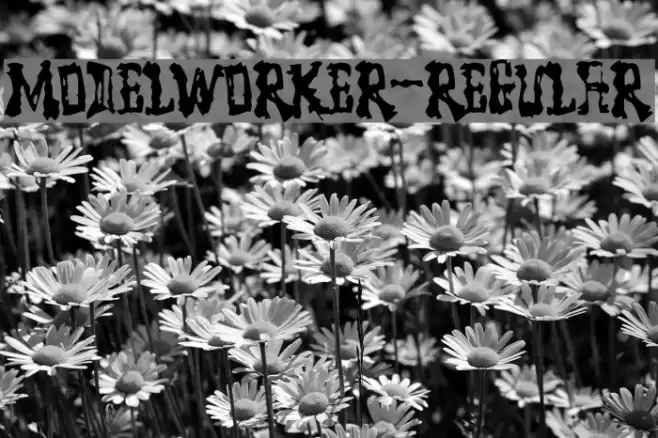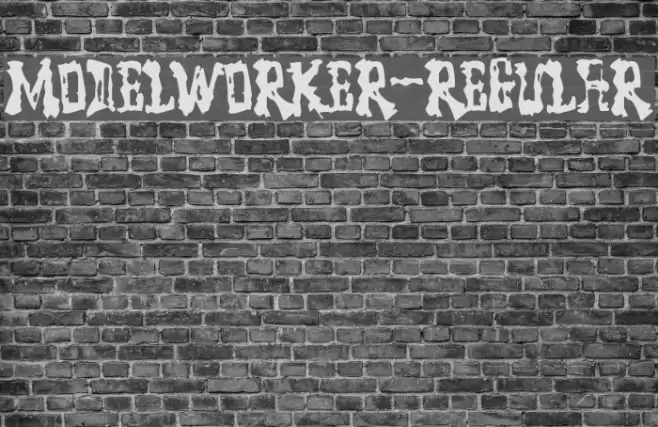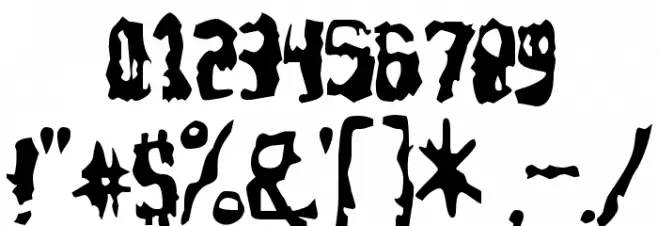
ModelWorker-Regular Font
ModelWorker-Regular Description
This font features a highly decorative and distressed style, characterized by irregular, jagged edges and a bold, impactful presence. The letters appear as if they are melting or dripping, giving a chaotic and edgy look. The uppercase and lowercase letters maintain this unique style, making it ideal for creating a dramatic and intense visual impact. The numbers and special characters follow the same design, ensuring consistency across all elements. This font is perfect for projects that require a strong, unconventional aesthetic.
A bold, distressed font with jagged, melting edges for dramatic impact from Uncategorized fonts.
- Proposed Projects: Ideal for horror-themed posters, Halloween invitations, edgy album covers, and any project needing a bold, dramatic typeface.